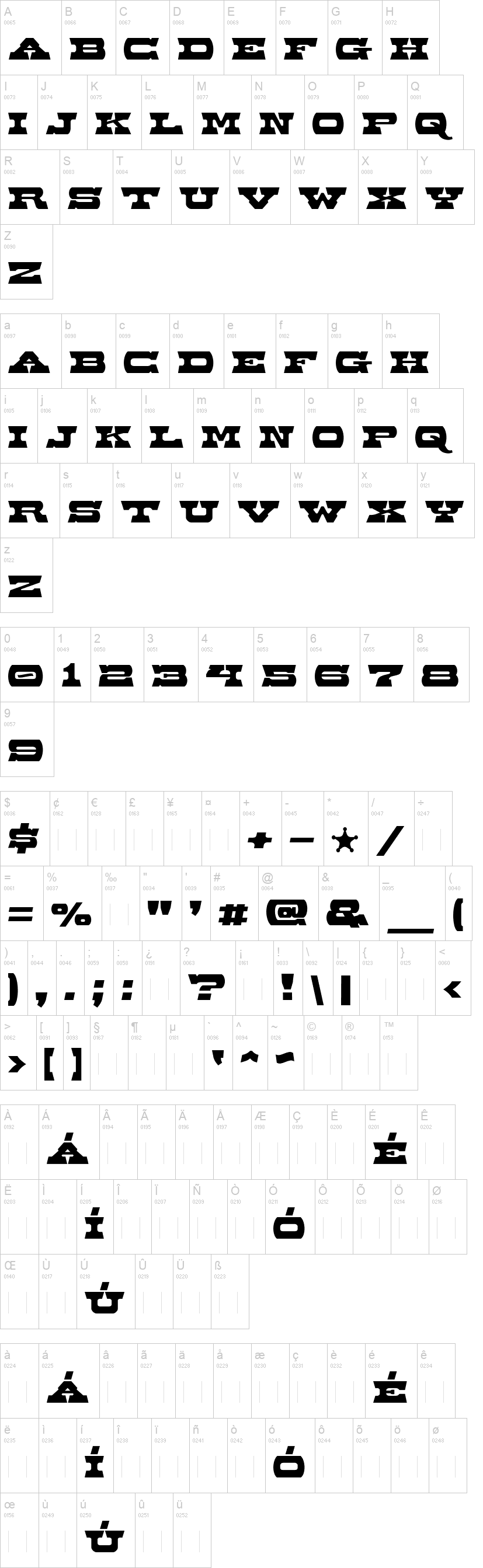
Note of the author"Baccer" is a western woodcut-type font loosely based on the logo of a long-leaf tobacco pouch. My great grandfather used to ask if I'd "like some 'baccer'".